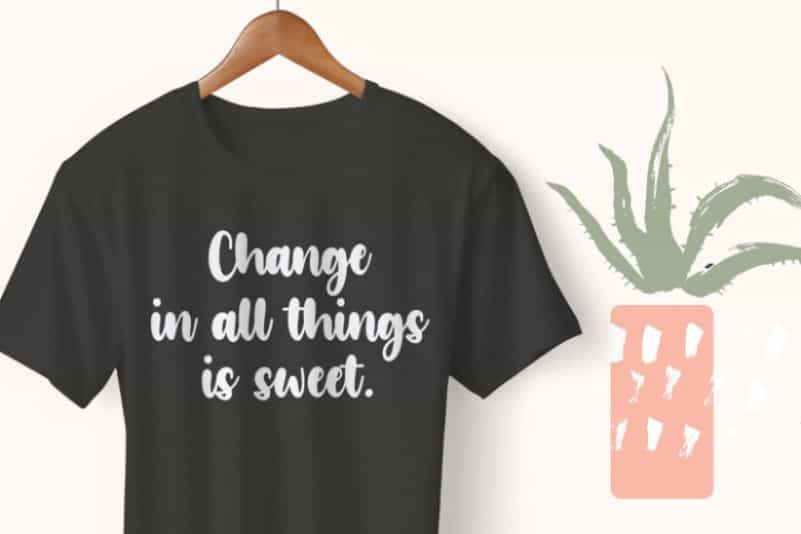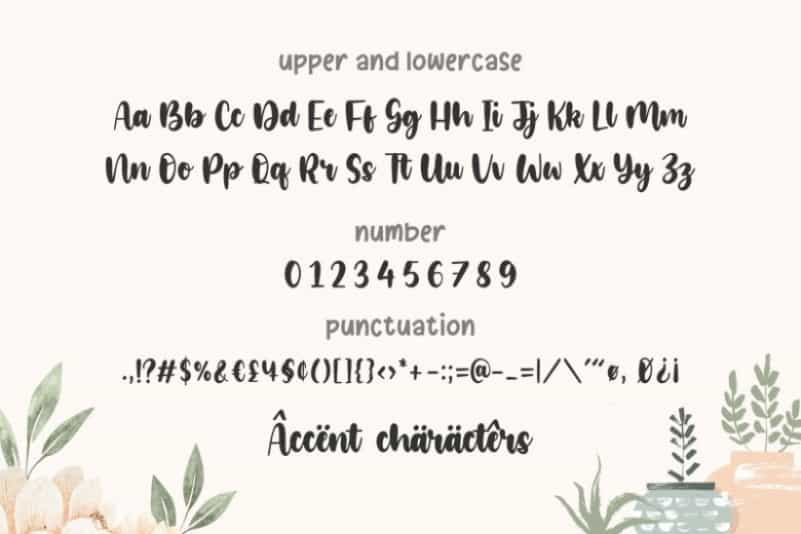
Discover Glamori Bold Script Font, part of the Brush Calligraphy Script collection—a versatile and unique font perfect for adding a personal touch to your projects. Download it for free and enjoy crafting designs with style, from invitations to social media posts. This font is available exclusively for personal use, giving you the freedom to create without limits. Unlock your creativity with Glamori Bold Script Font today!
Glamori is an bold brush calligraphy font. Glamori is great for branding, packaging, projects, magazines social media, wedding or to simply convey words above the background. The font comes with TTF Glamori as well as supports multilingual characters.